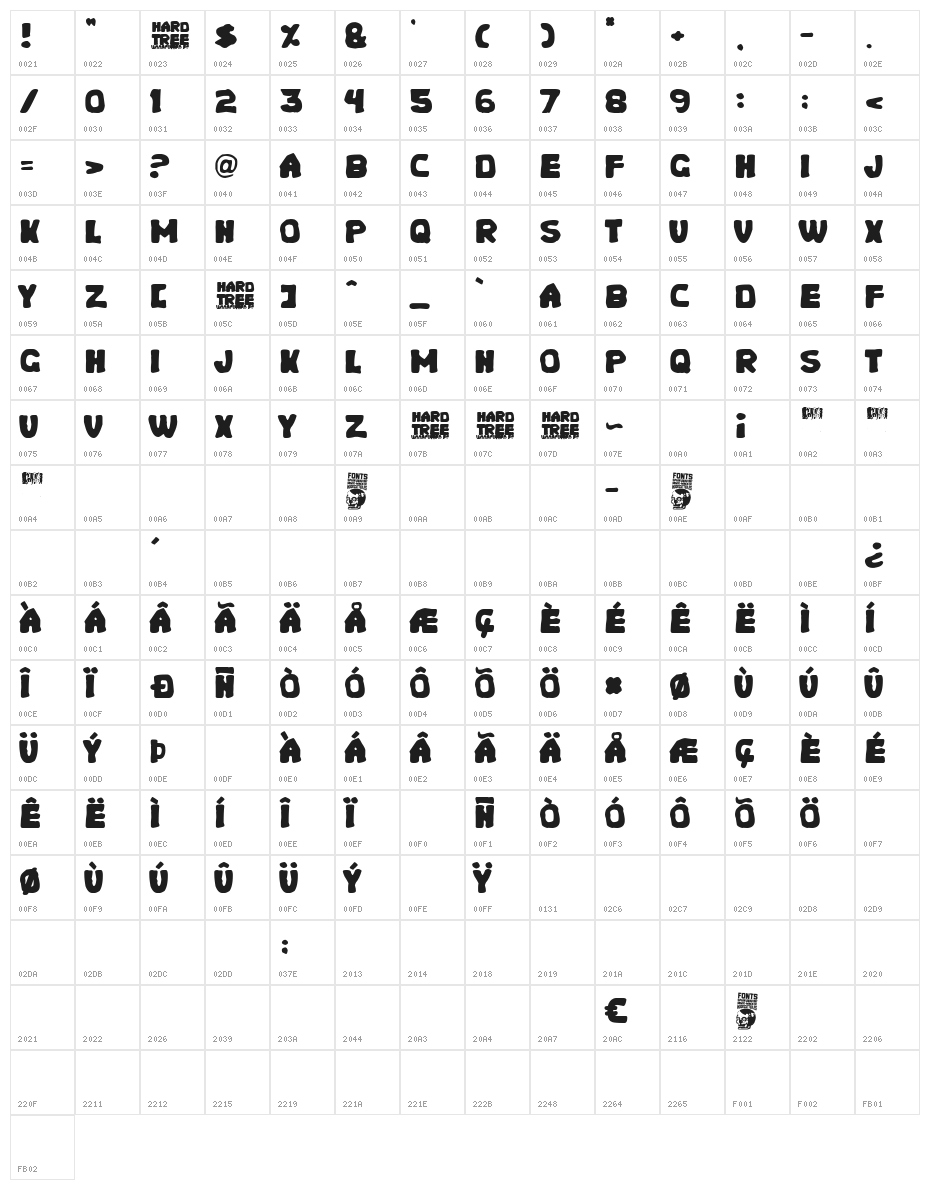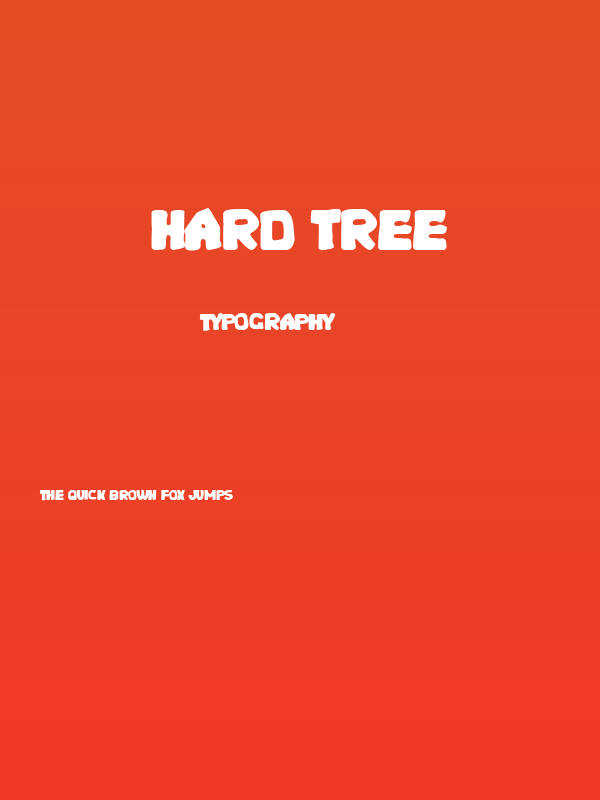
Hard Tree Font
Hard Tree Description
This font features bold, chunky letters with a playful and organic feel. The characters are rounded and thick, giving them a strong presence on the page. The style is reminiscent of hand-carved wood, with a slightly uneven texture that adds to its rustic charm. The uppercase and lowercase letters maintain a consistent weight, while the numbers and special characters share the same robust design. This font is ideal for projects that require a bold statement or a natural, earthy aesthetic.
| Overall Style | Rustic, Playful |
| Use Case | Logos, Headlines, Posters |
| Proposed Projects | Perfect for eco-friendly branding, outdoor event posters, children's book covers, or any project needing a natural and bold look. |